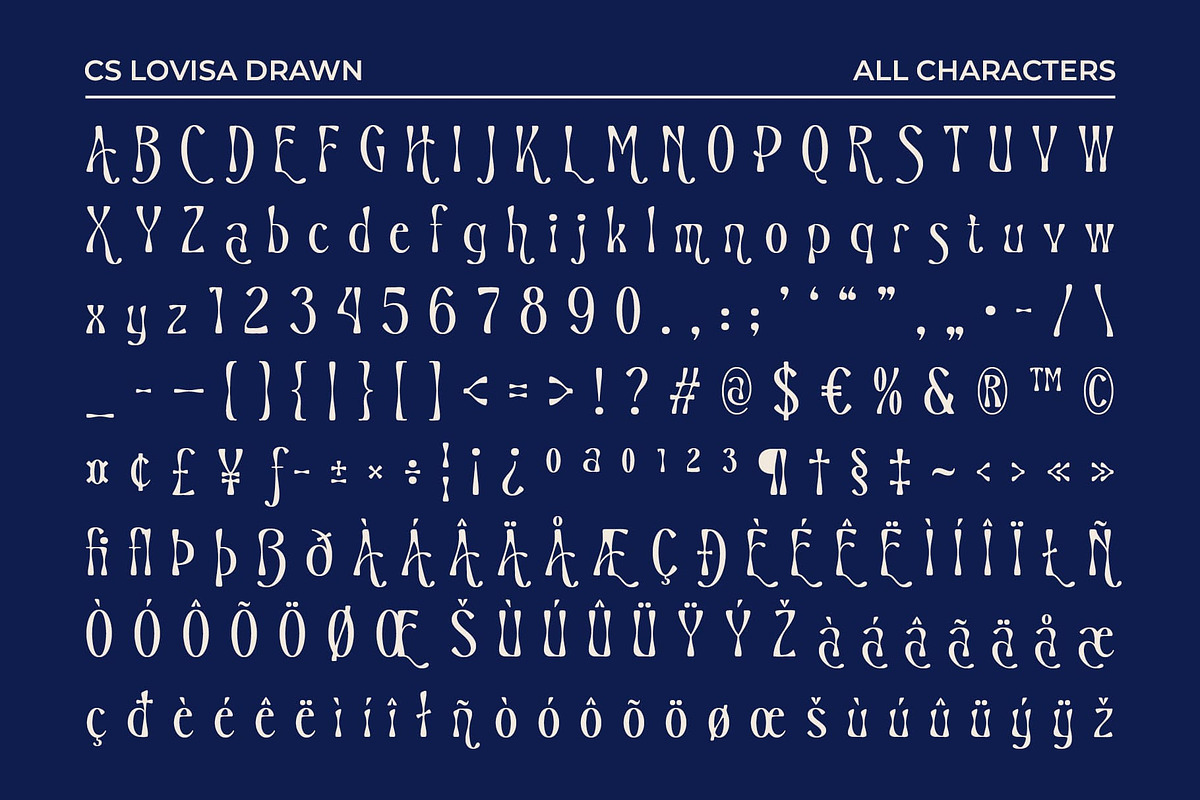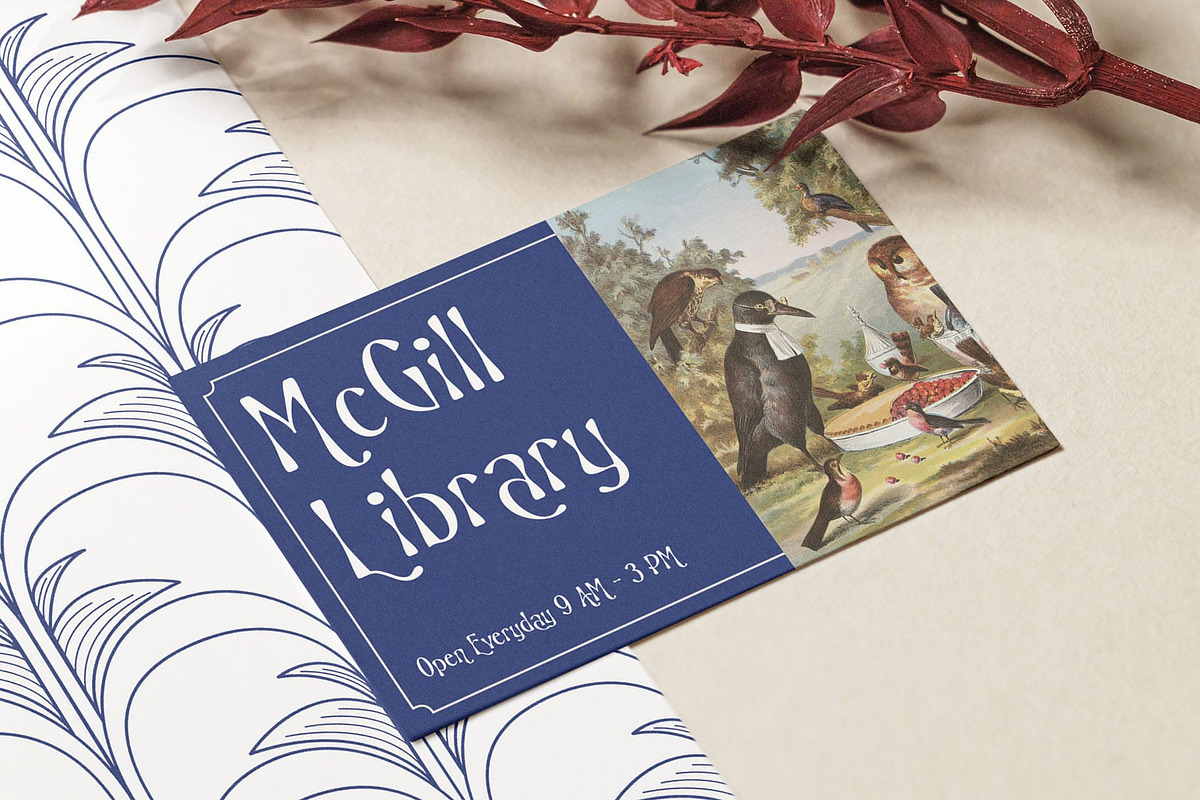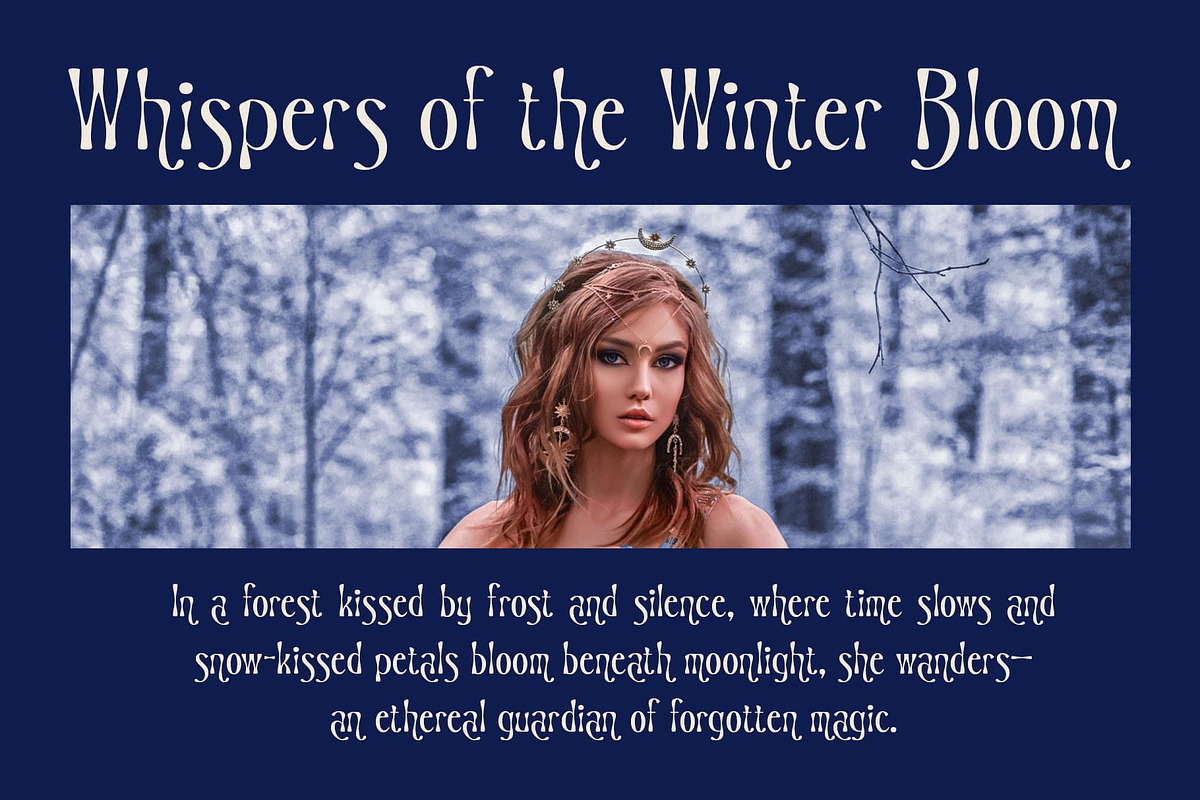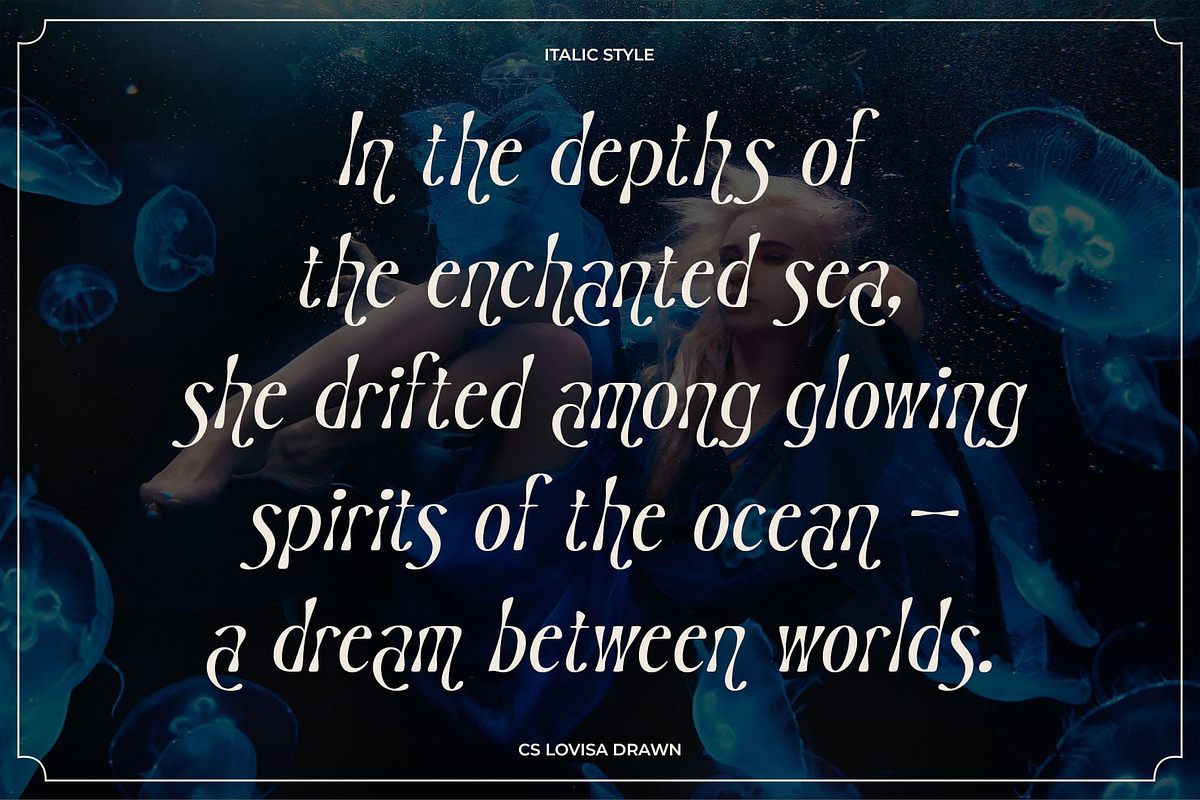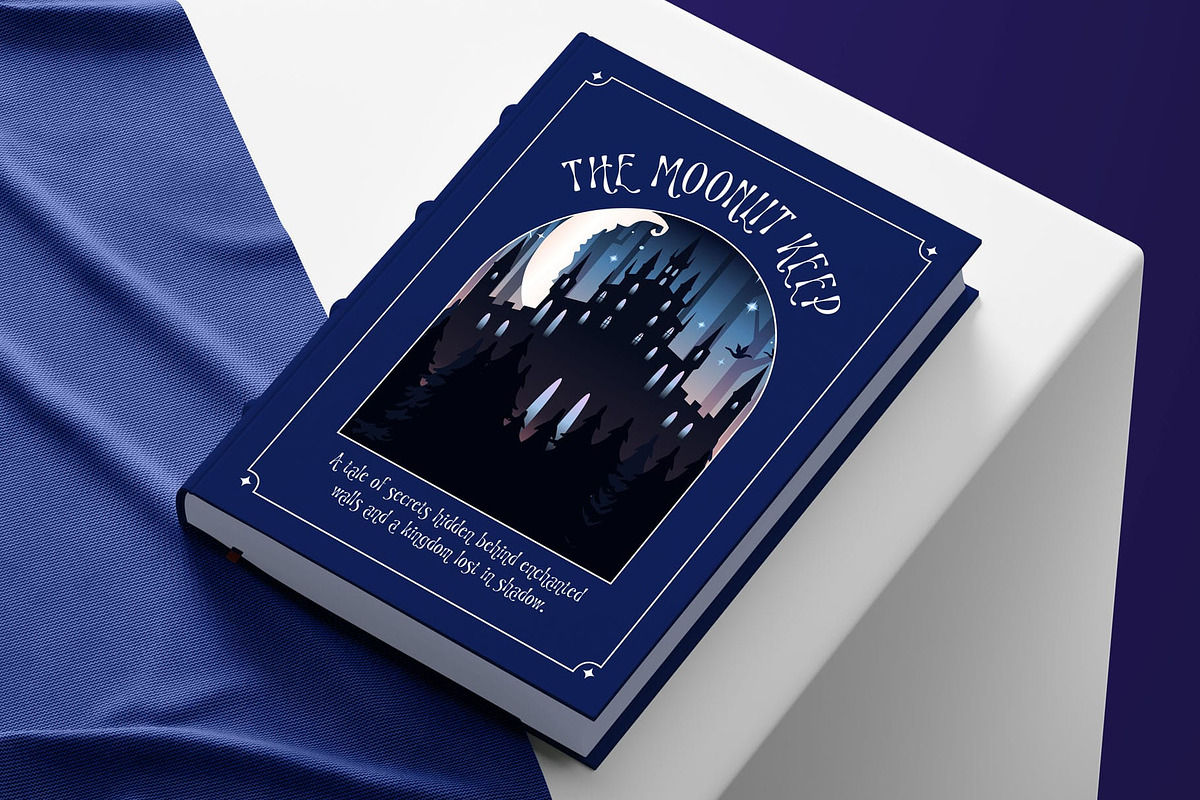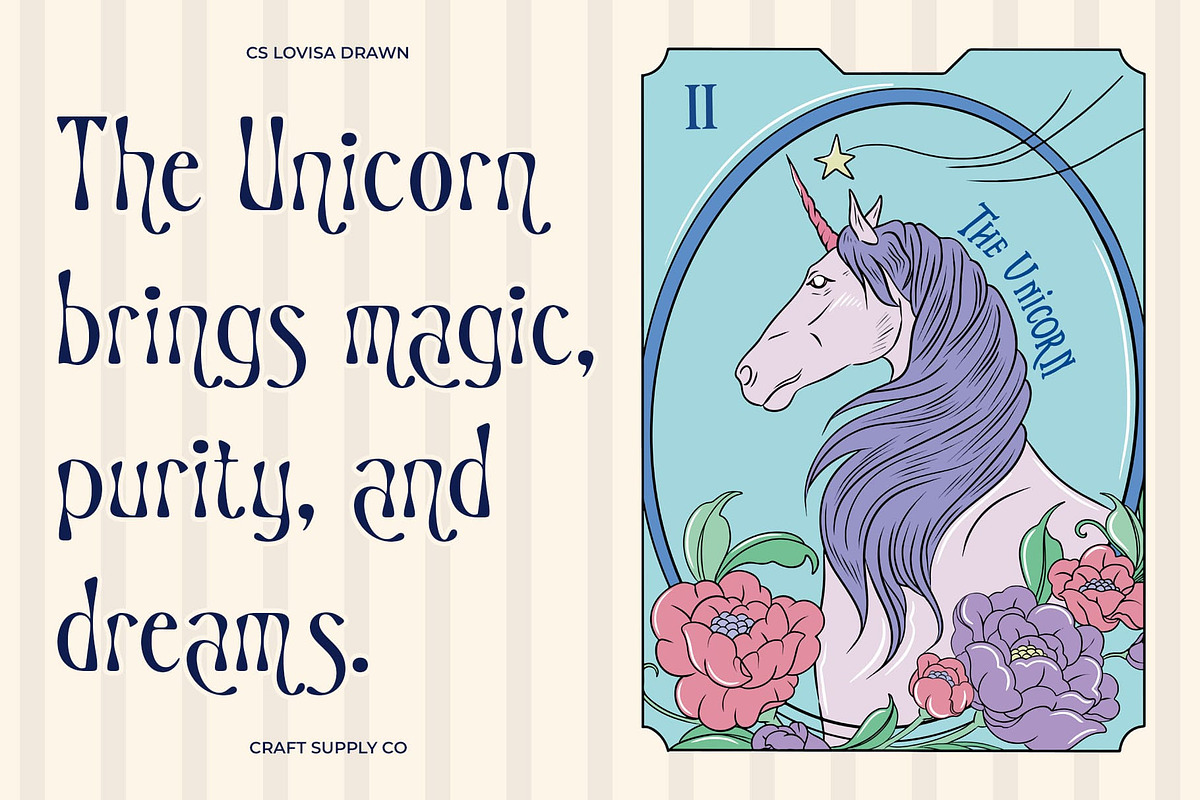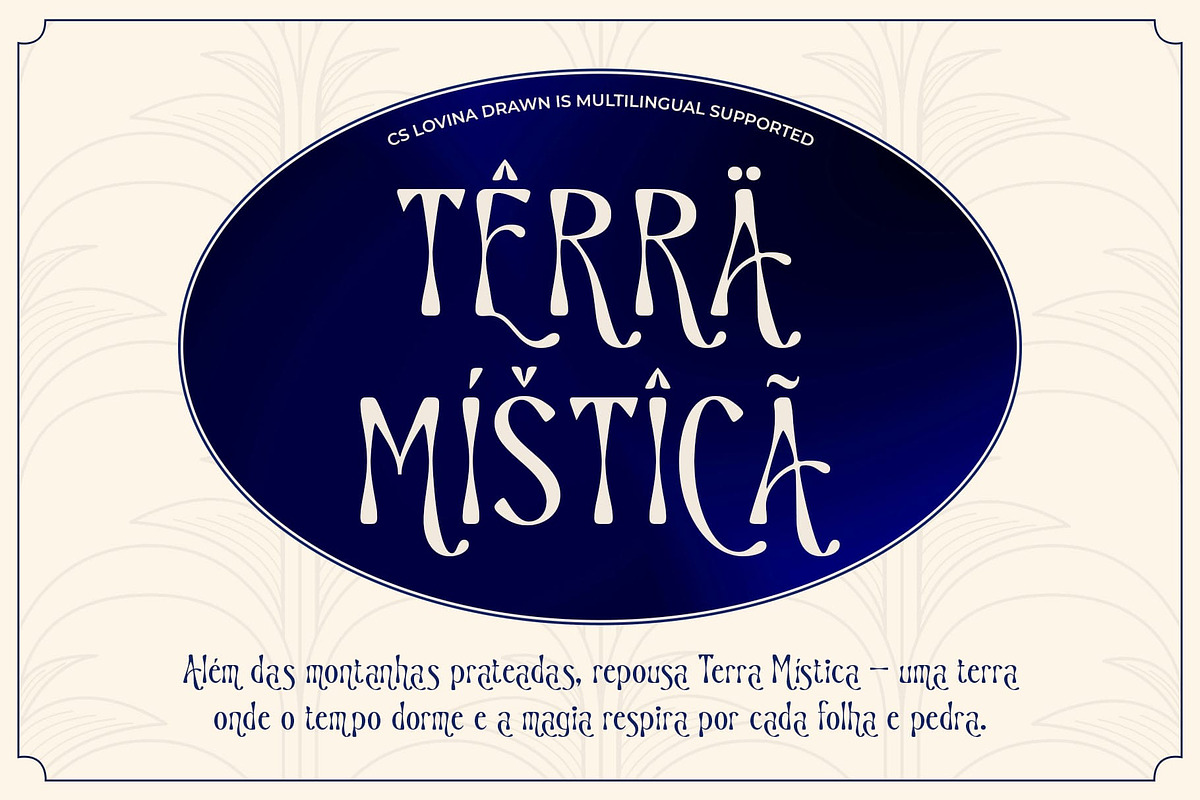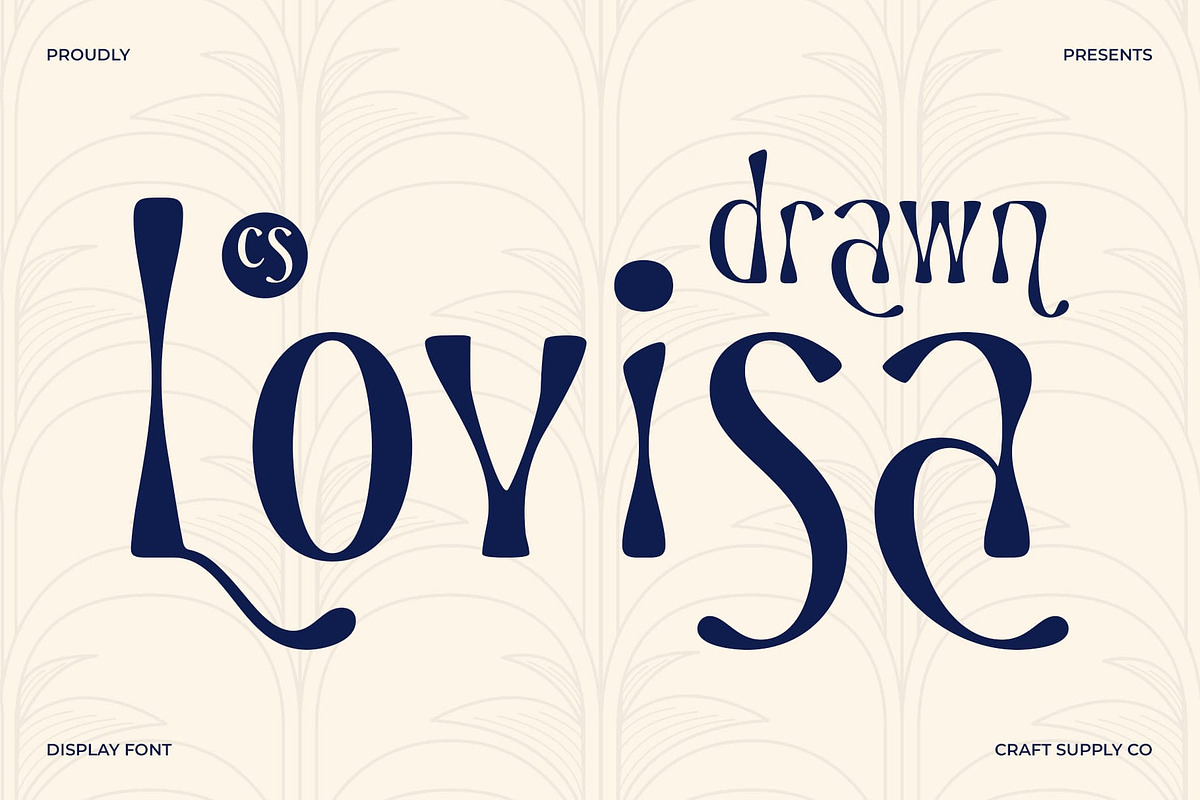
CS Lovisa Drawn
CS Lovisa Drawn – Whimsy Meets Elegance in Hand-Drawn Fantasy
Artistic Fantasy Letterforms CS Lovisa Drawn is a modern display font featuring enchanting and imaginative letterforms inspired by fantasy aesthetics. Its beautifully curved shapes and artistic structure evoke a sense of wonder and storytelling, making it ideal for projects that seek to capture a dreamy, magical, or fairy tale-like atmosphere.
Hand-Drawn Texture for Magical Charm What sets this modern display font apart is its delicate hand-drawn effect, adding texture and personality to its already whimsical forms. This subtle irregularity gives the font an organic, handcrafted feel—enhancing its charm and making it perfect for designs that want to feel warm, unique, and visually expressive.
Perfect for Beauty, Fantasy, and Storytelling Themes Whether used in fairy tale-themed designs, beauty or feminine branding, or creative editorials, this fantasy font adds a distinct narrative quality. Its aesthetic appeal and magical feel make it a natural fit for projects that seek to enchant the audience—like book covers, boutique logos, or imaginative packaging.
Captivating Blend of Imagination and Elegance Blending the softness of fantasy curves with the sophistication of modern display design, this font offers a beautiful balance of elegance and creativity. Its enchanting style invites viewers into a world of visual storytelling, while the drawn texture provides a fresh, contemporary twist.